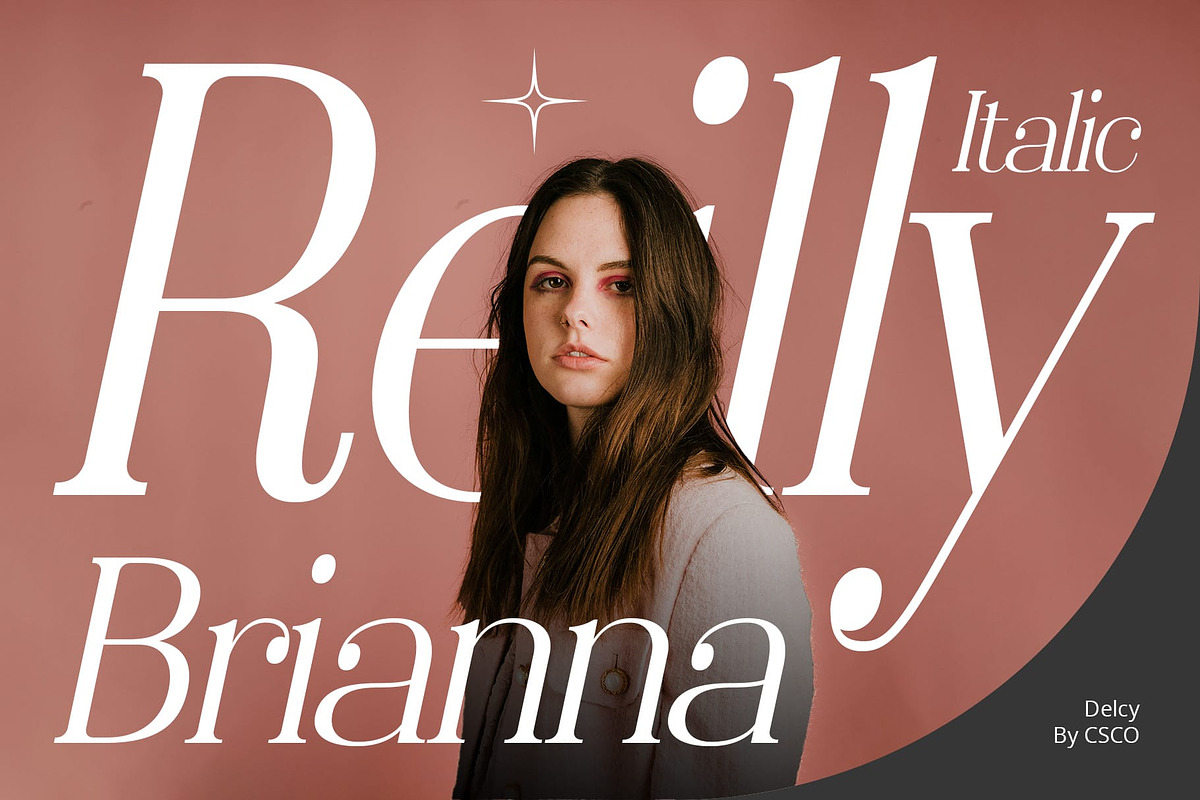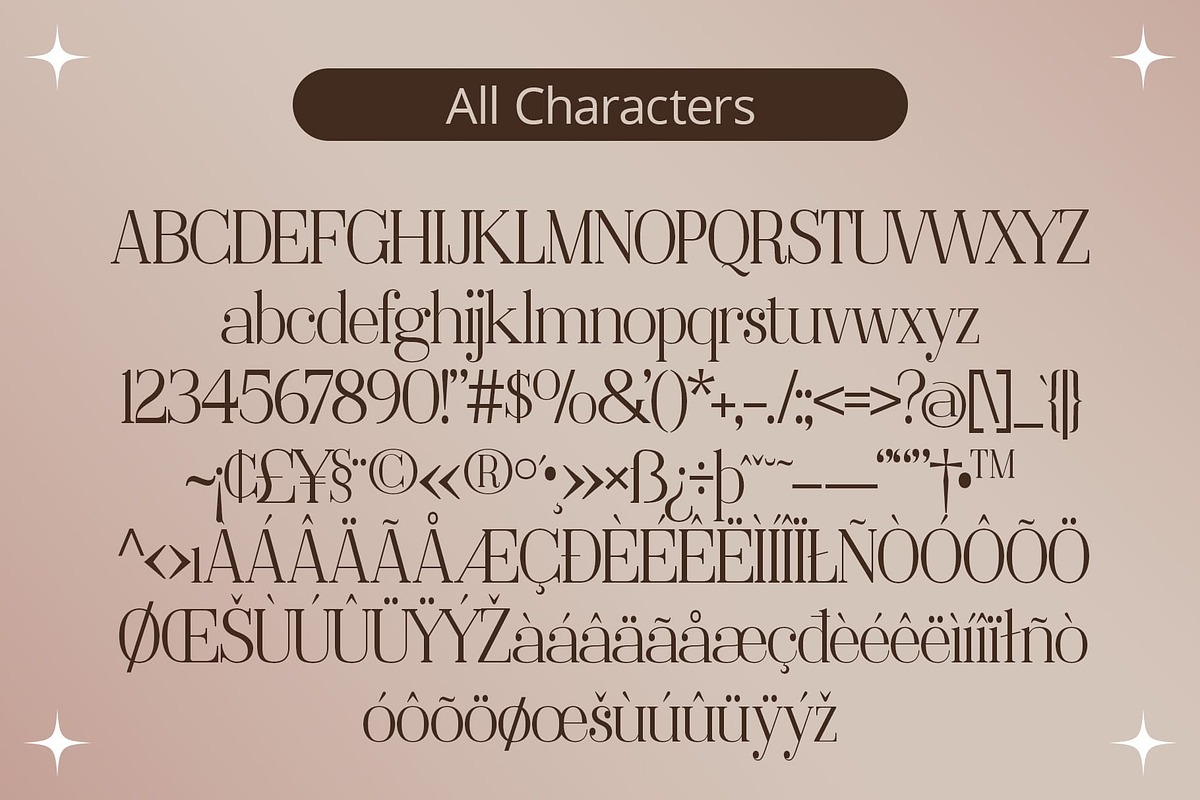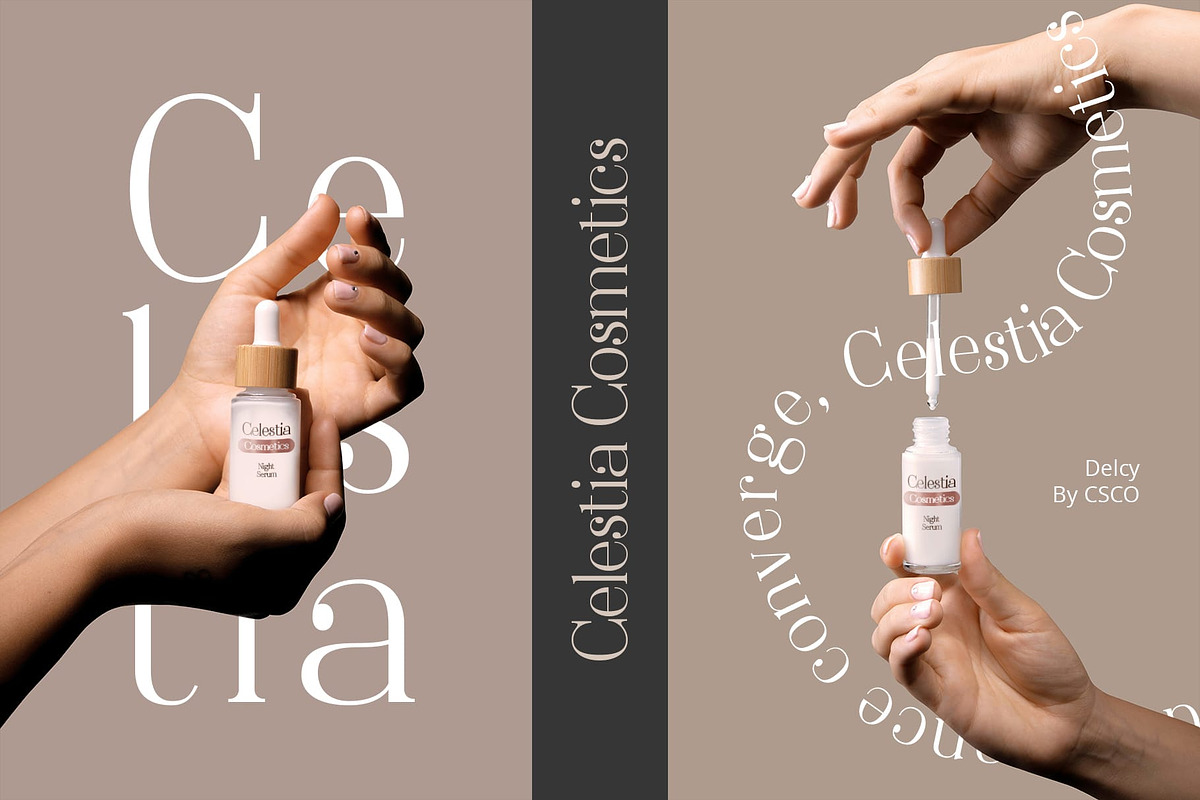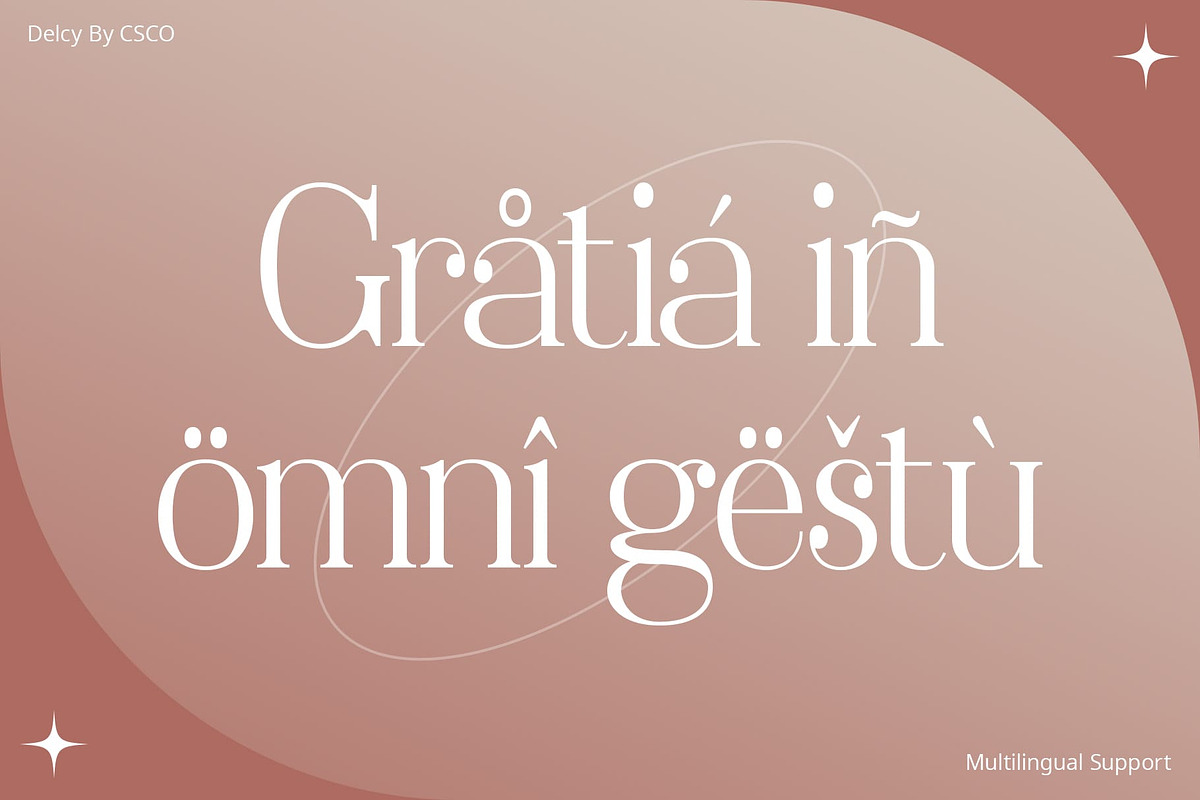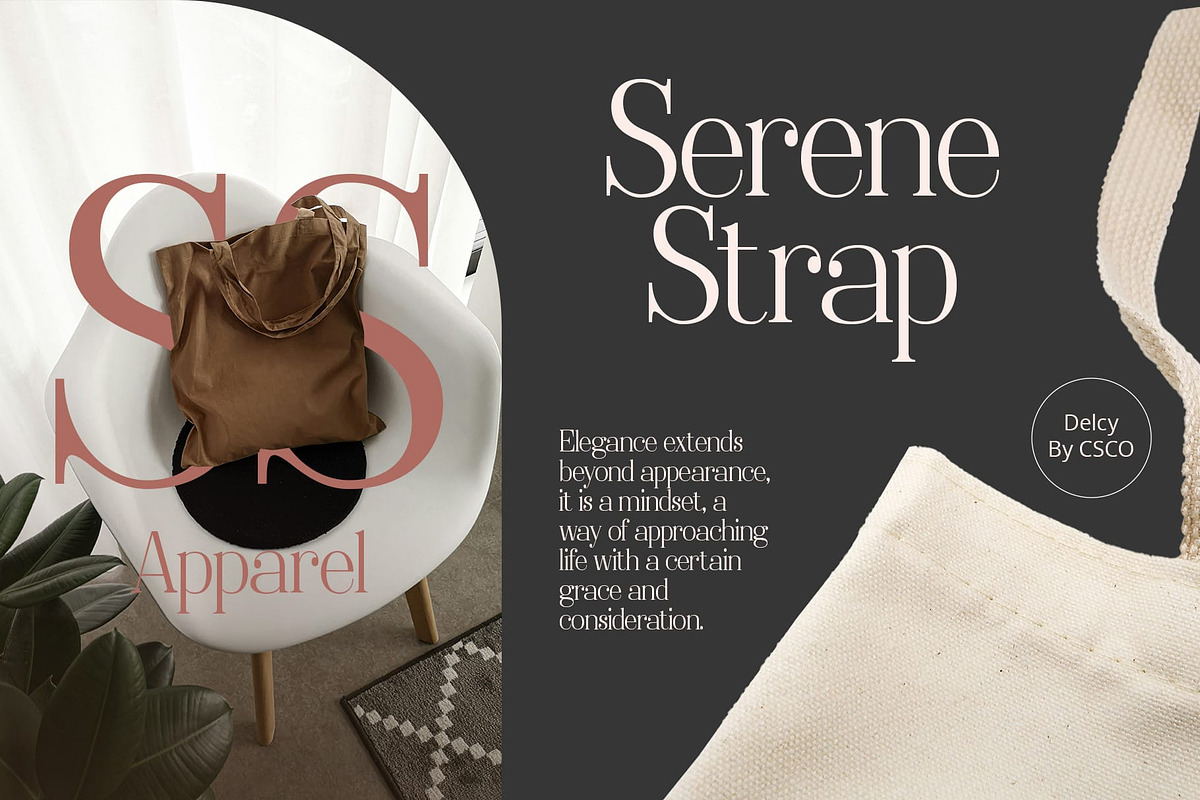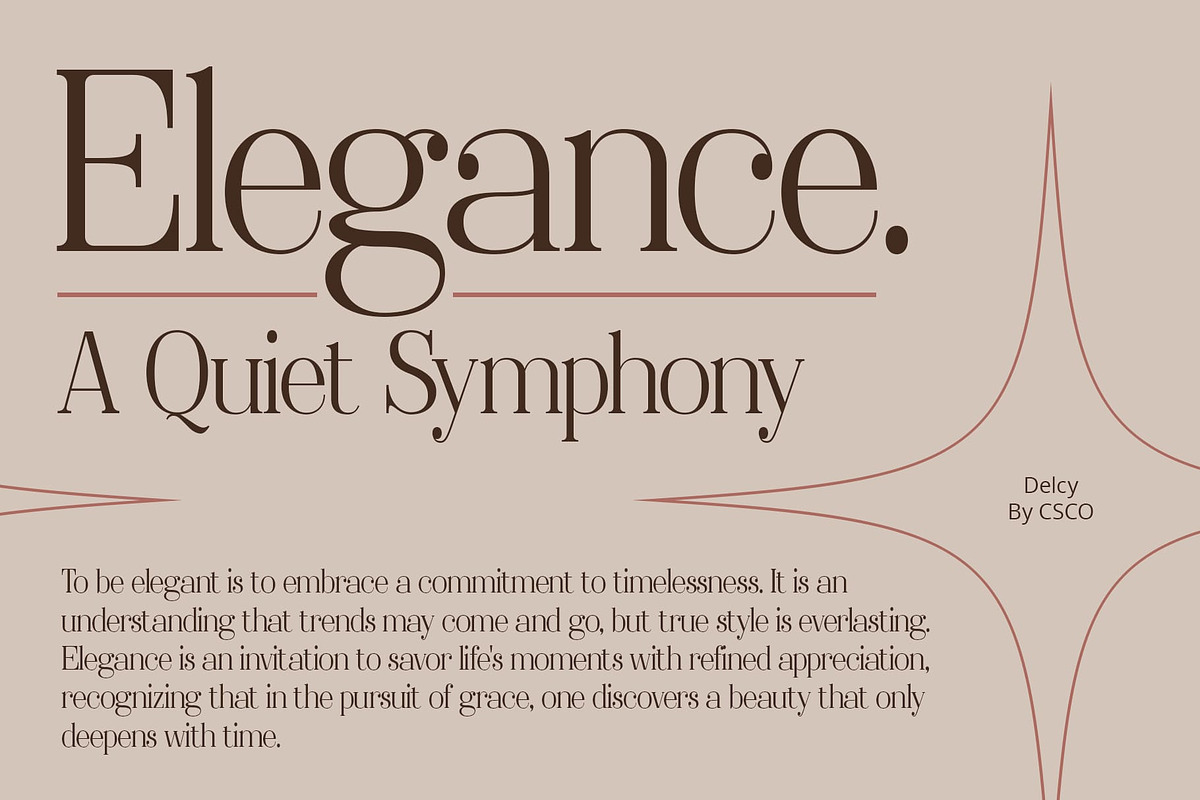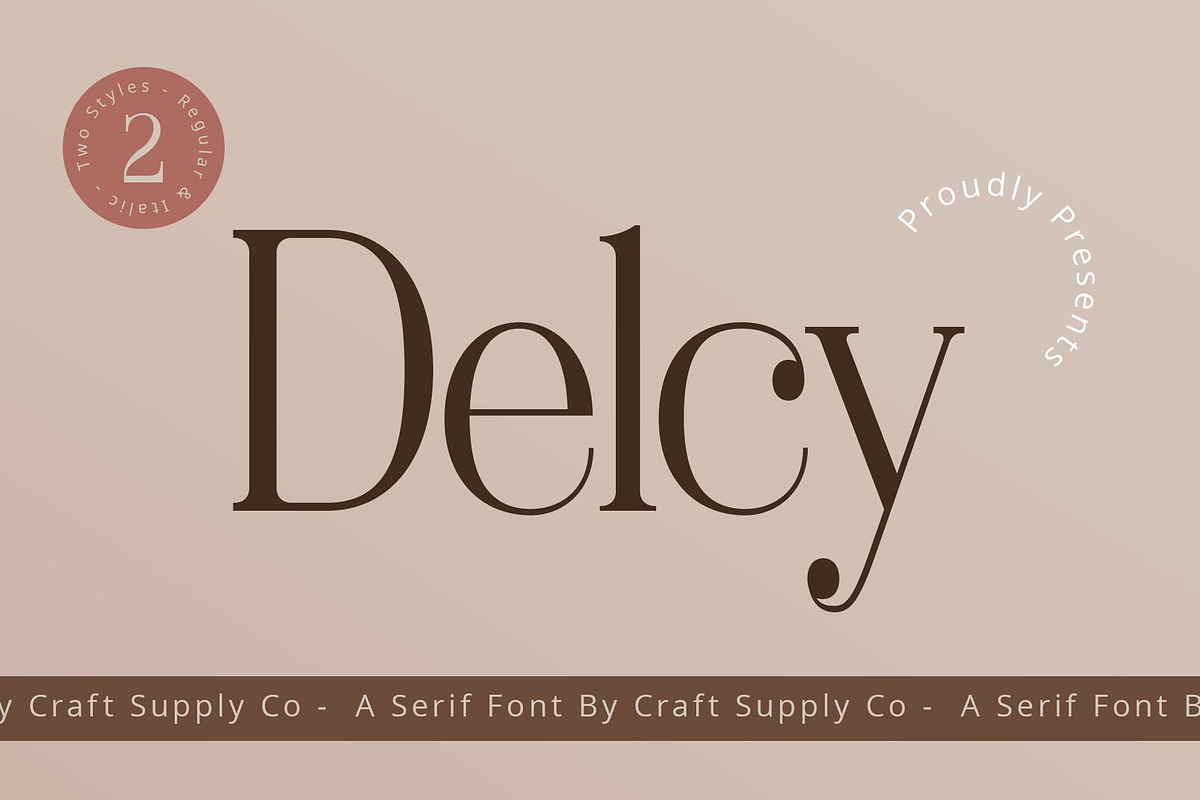
Delcy – Elegant Serif
Delcy – Timeless Elegance in Every Serif
Classic Inspiration Delcy, an elegant serif font inspired by the enduring beauty of Bodoni, pays homage to the classics while seamlessly integrating modern aesthetics.
Graceful Serif Design Delcy’s serifs embody grace and sophistication, elevating your design with a timeless touch of refinement and elegance.
Versatile Sophistication Beyond its classic roots, Delcy’s adaptability effortlessly bridges the gap between traditional and contemporary design, making it a versatile choice for a myriad of projects.
Refined Typography for Every Occasion Whether gracing the pages of editorial works, defining brand identities, or enhancing event invitations, Delcy’s refined serifs add a layer of sophistication that enhances the overall visual experience.
Conclusion Delcy isn’t just a font; it’s a design essential. Its graceful serifs and versatile appeal make Delcy the perfect choice to elevate your projects, adding a touch of timeless elegance that transcends trends and eras.
- Delcy Regular
- Delcy Italic